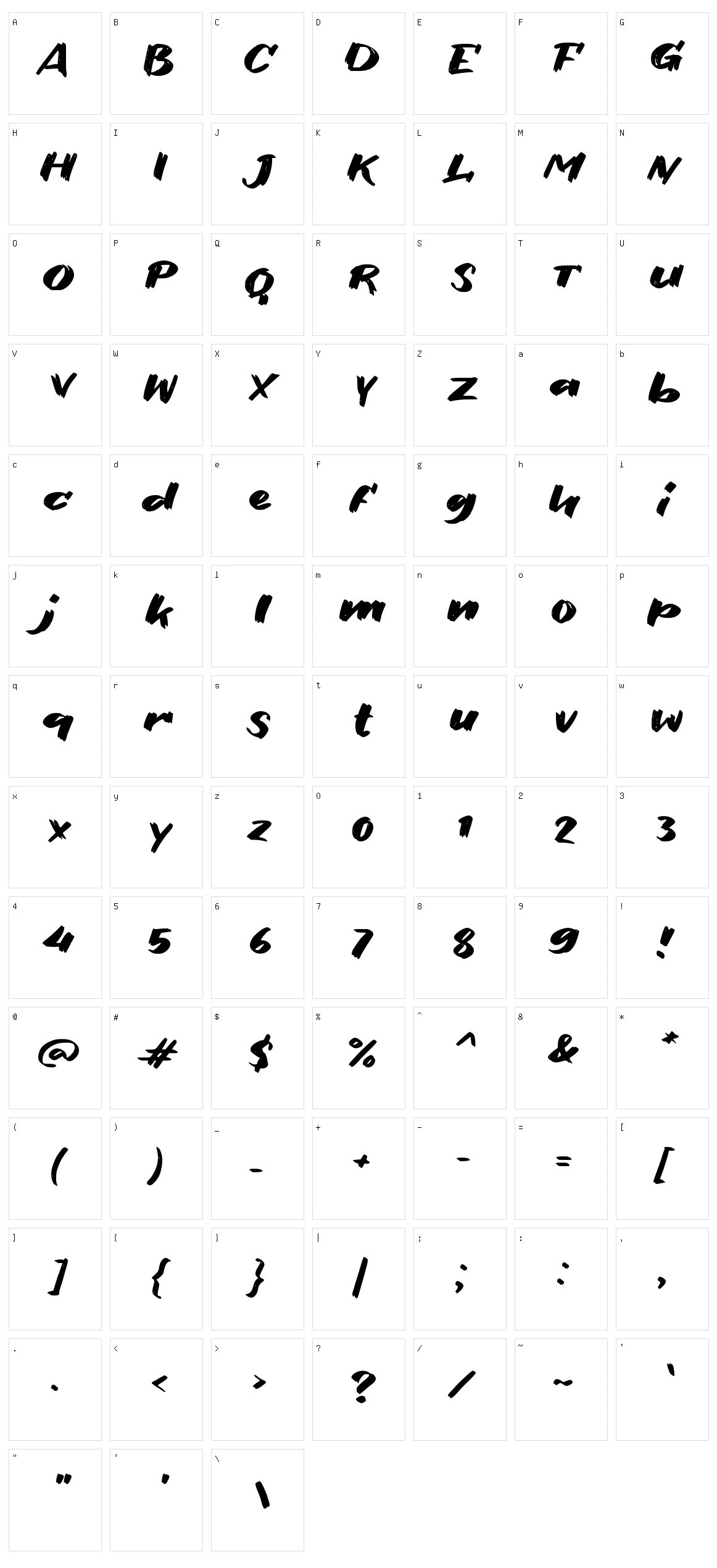
The free font e Eh Iyo is carefully designed by wep, showcasing a thoughtful balance of creativity and usability and falls under the Script font style. When you download the ZIP file, it contains only 17.5 KB of font files, making it lightweight and quick to download. Please review the license details below to understand permitted usage and distribution rights. If license information is not available, we recommend using this font for personal projects only or contacting the author directly for commercial usage permissions.